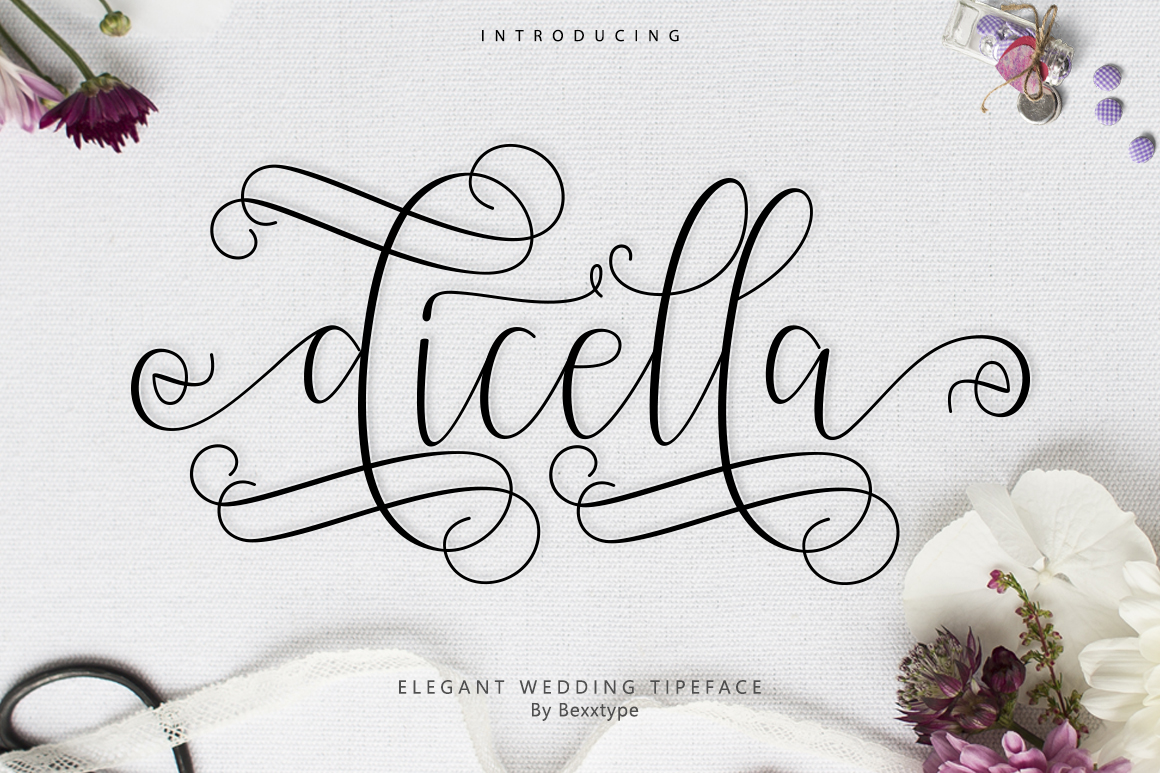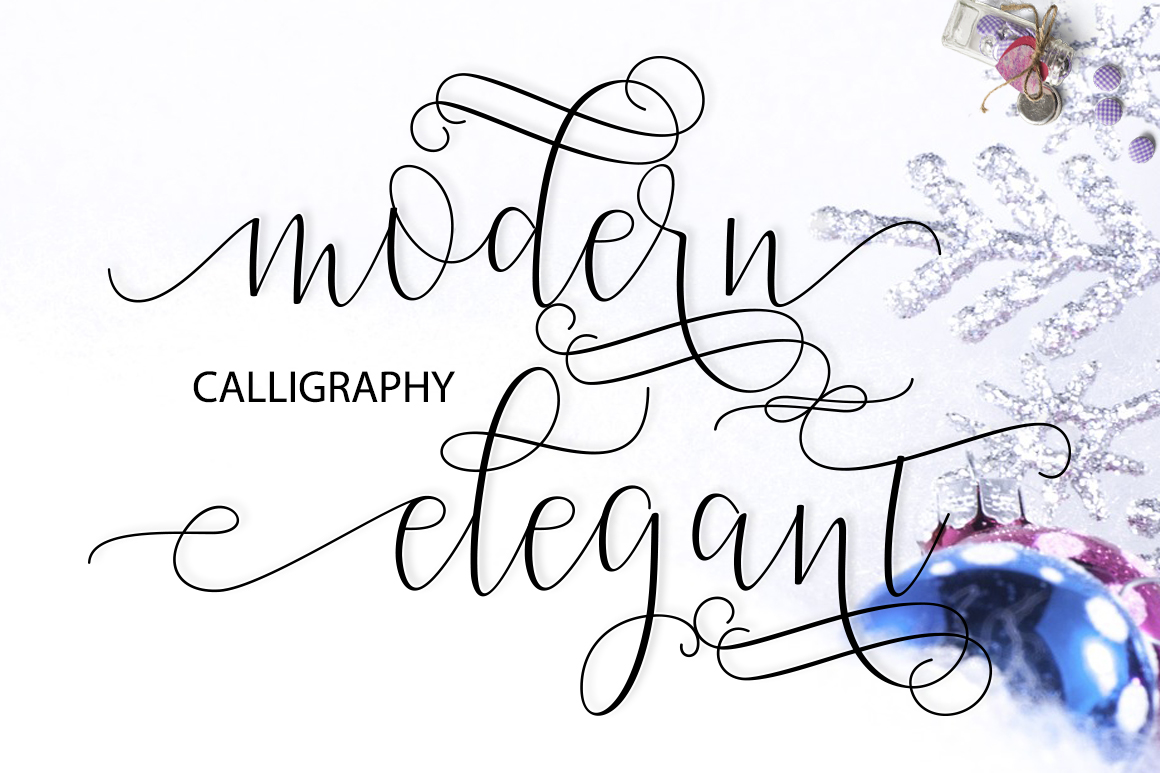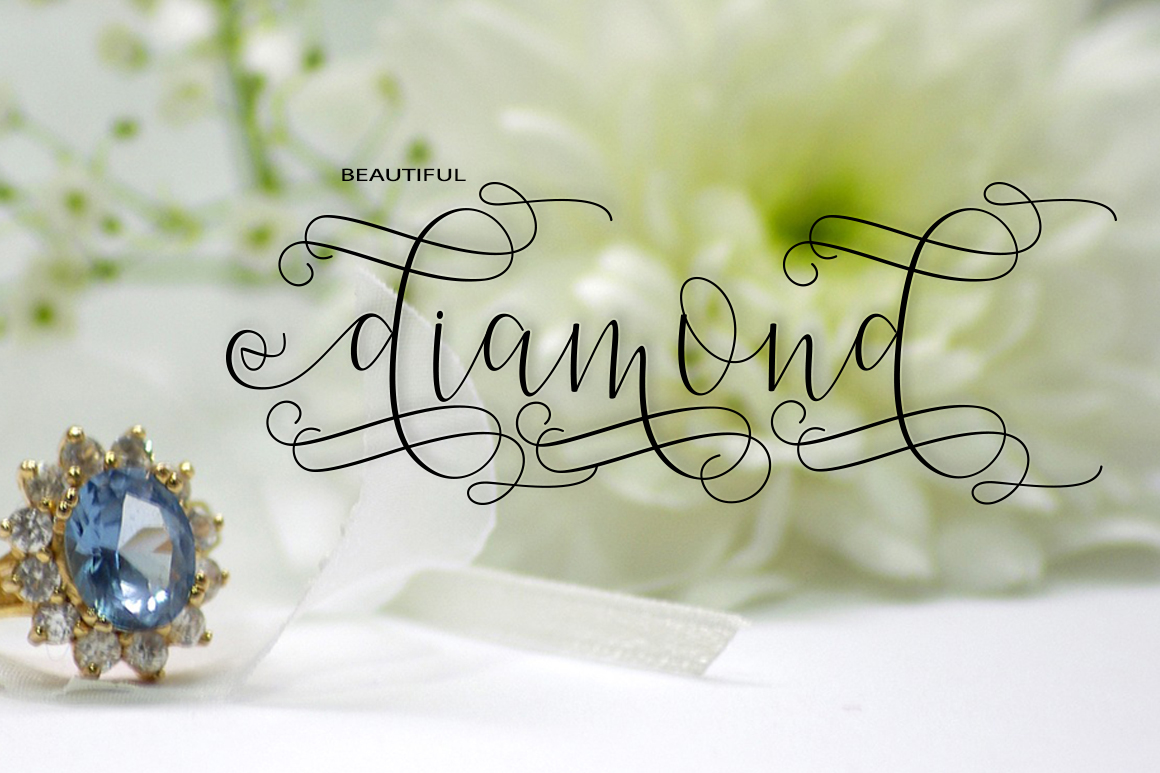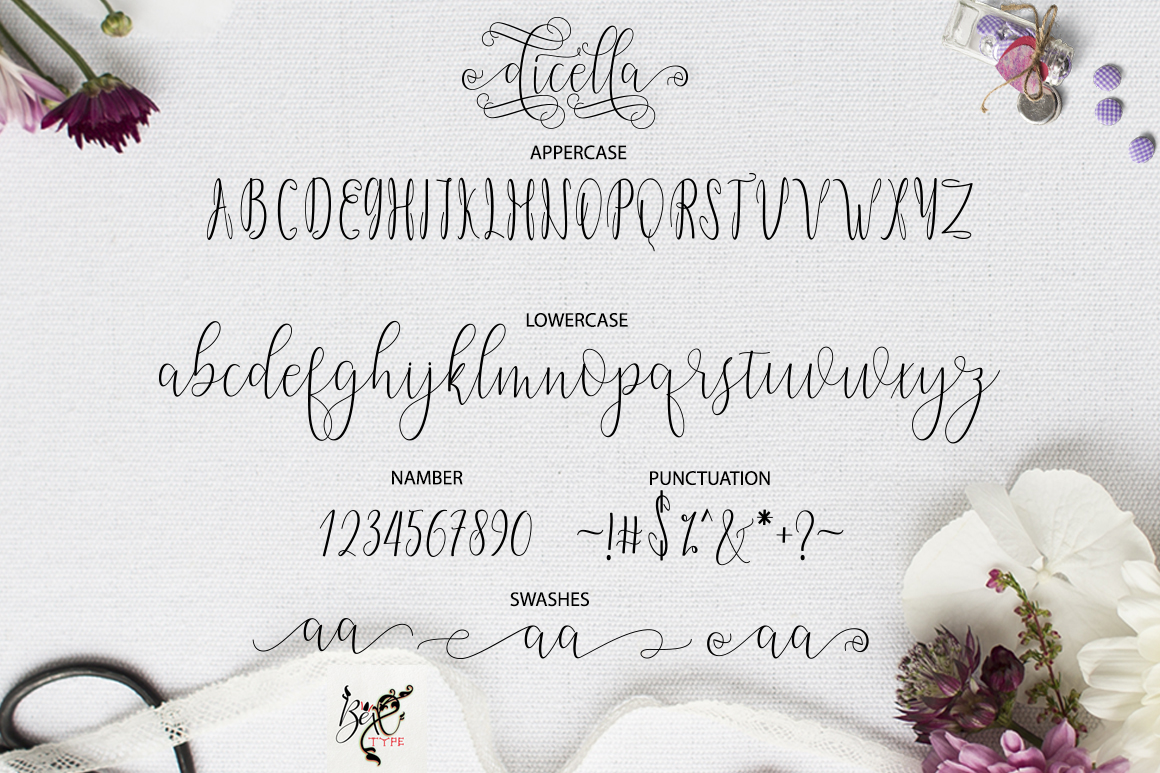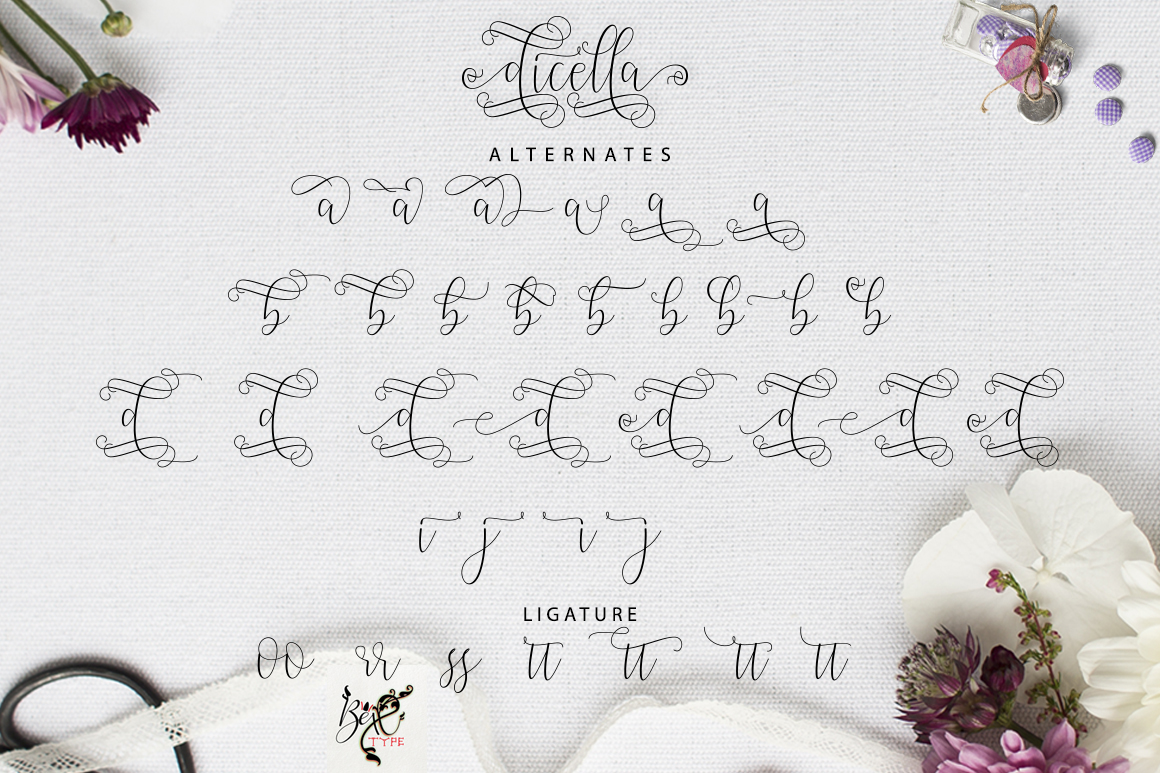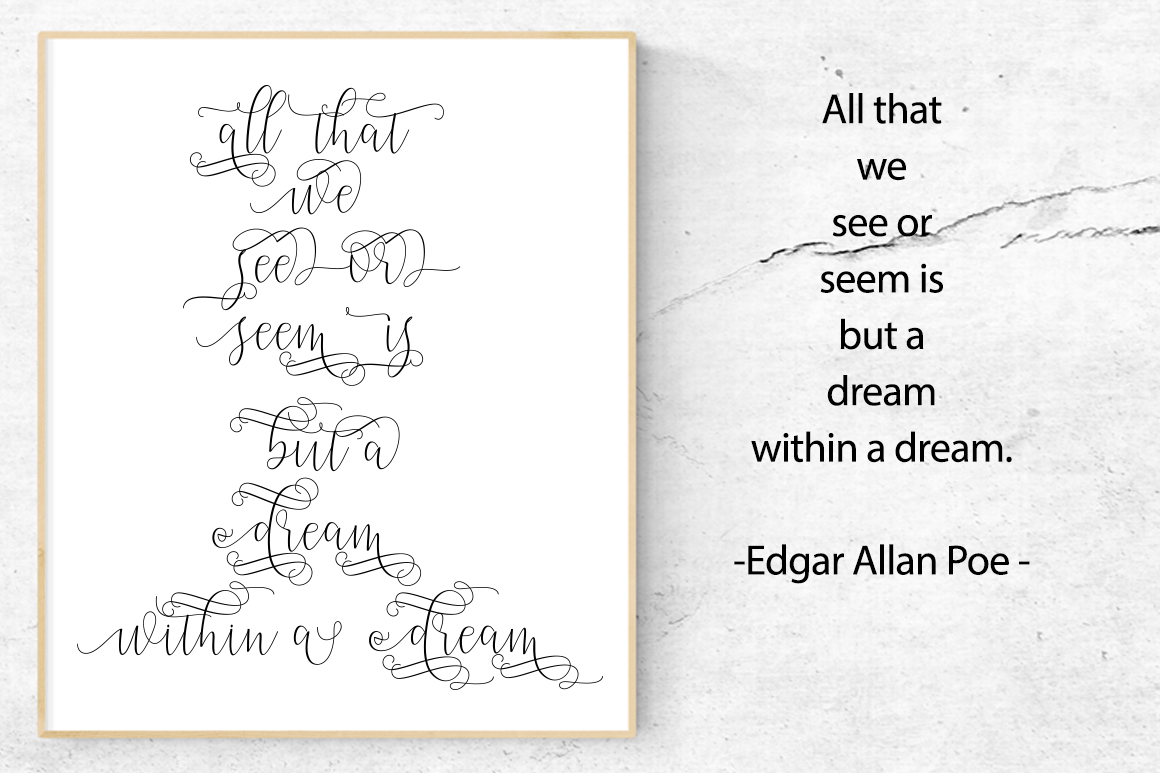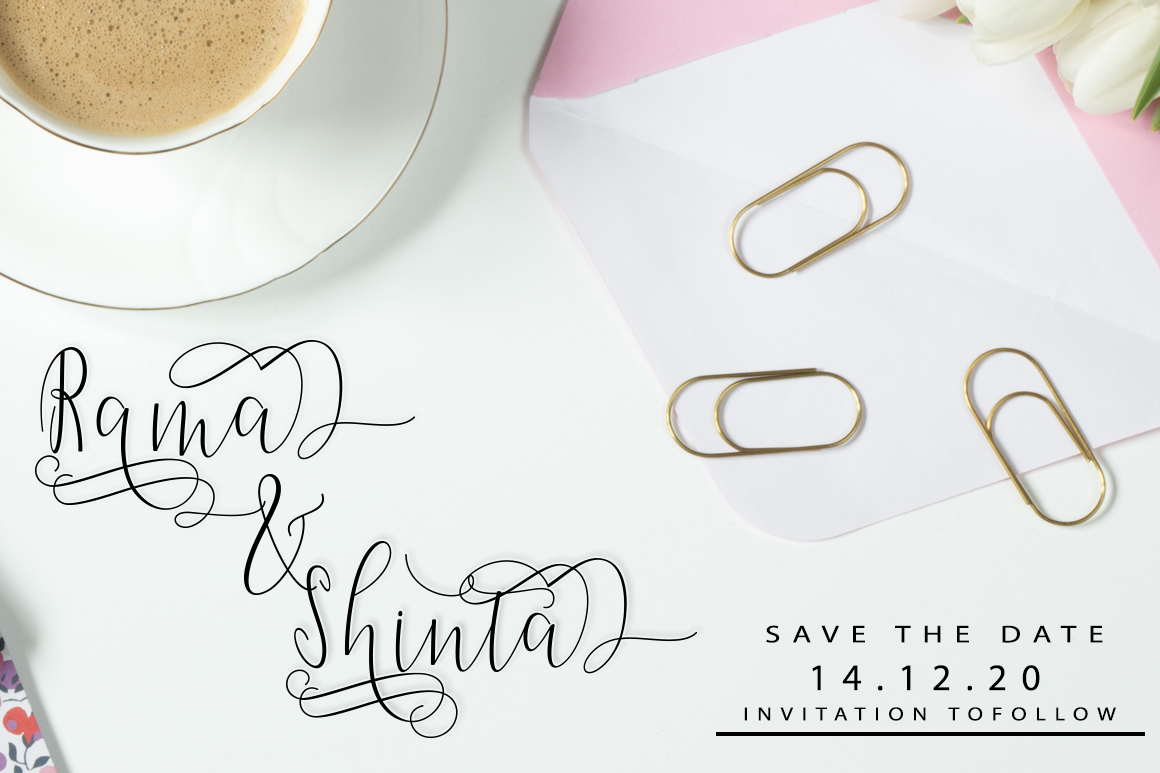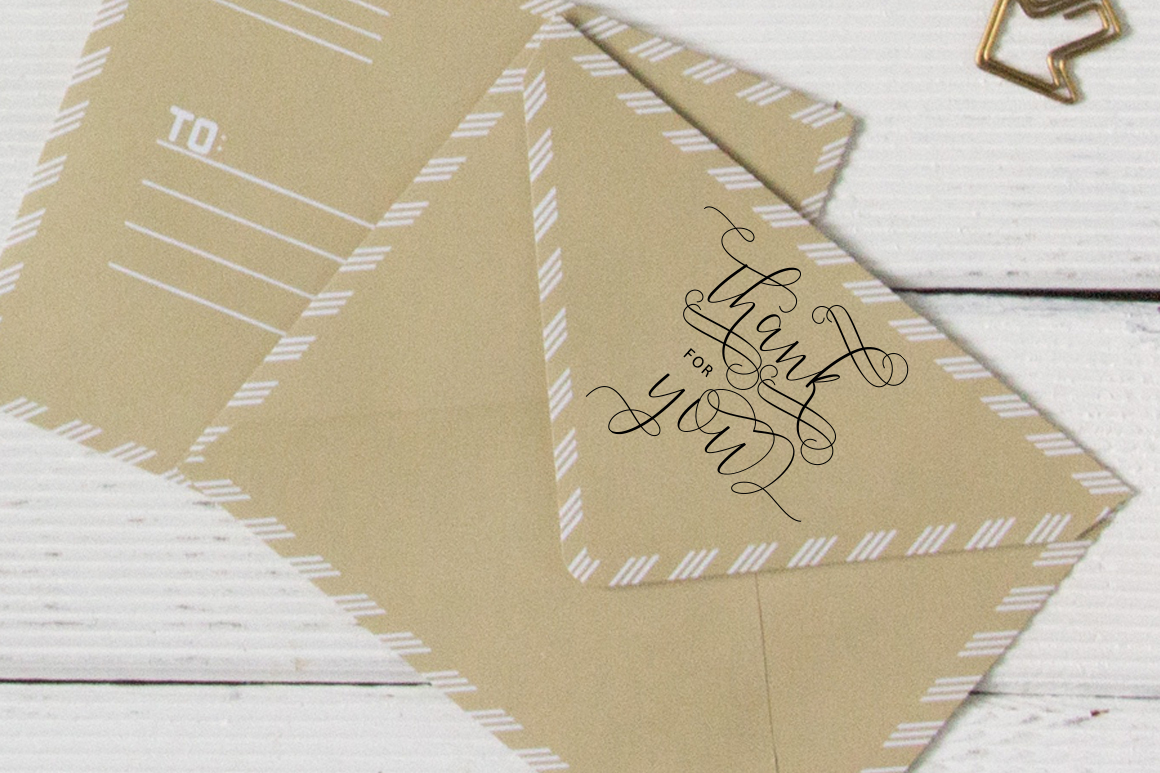
Dicella Font
About Dicella Font
Dicella is a modern script filled with 600 unique glyphs. Many of the glyphs contain stunning swashes that will allow you to create design that stands out.